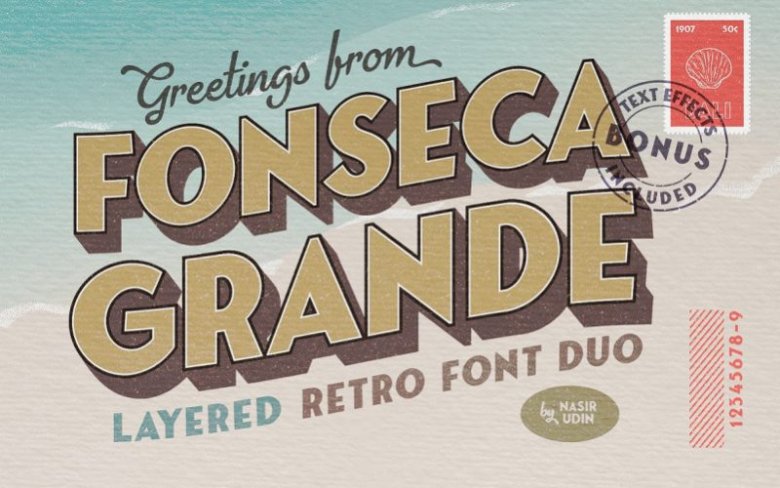
Fonseca Grande Sans Font
Classic city postcards would come in fresh new look with this fonts combination. Layered bold retro sans serif complemented with a handwritten script perfectly paired, bring back your memories of thousands cities you have explored.
Vintage world travel postcards (the ‘Greetings from’ postcards) are the main inspiration of this fonts collection. But not limited to postcards, you can use this font family for any projects; branding, posters, packaging, restaurant menus, stamps, badges, signage, you guys are the expert at this field!